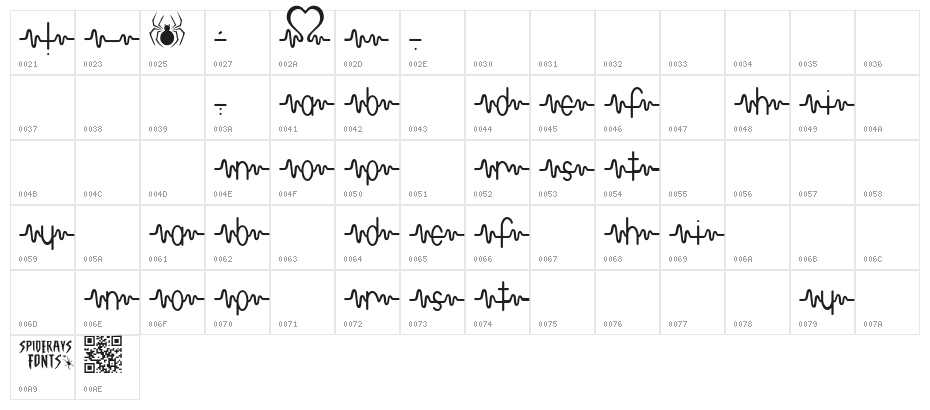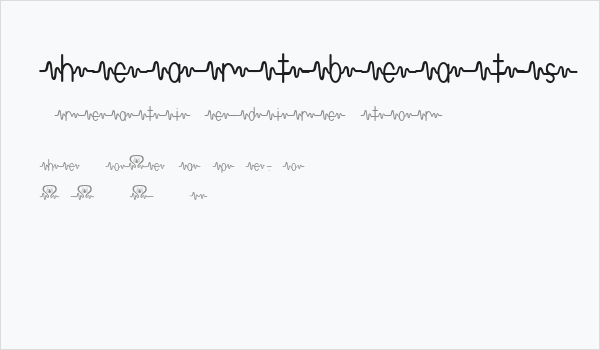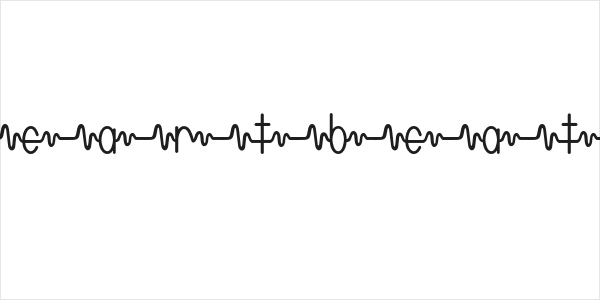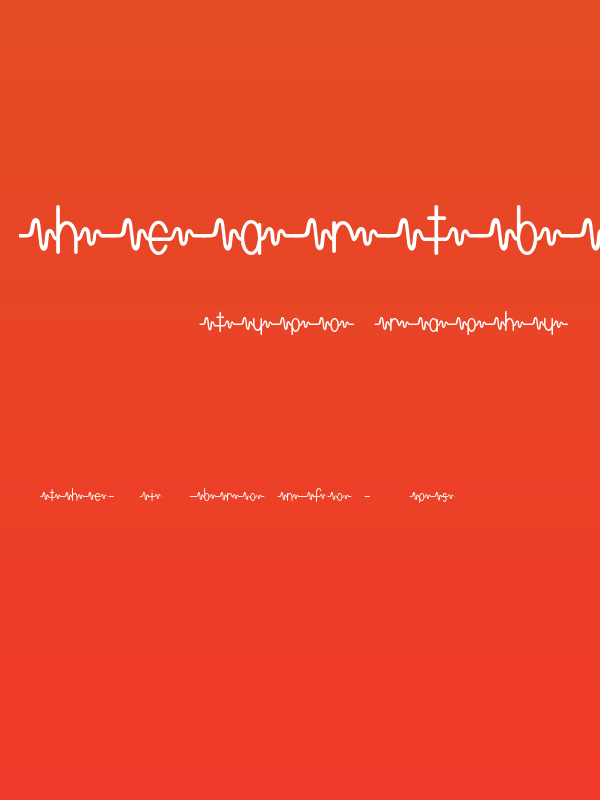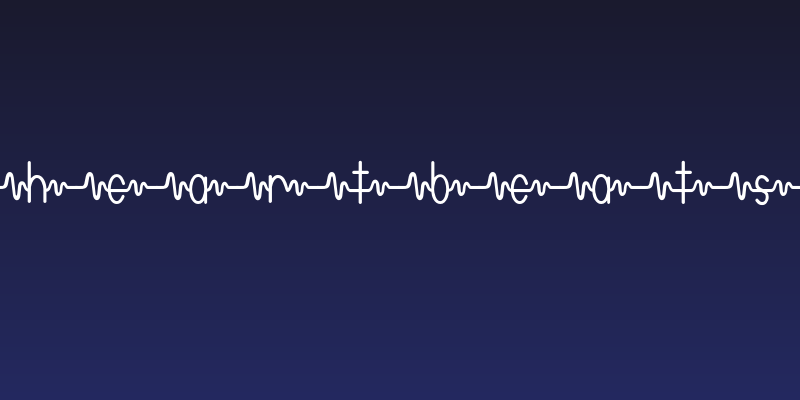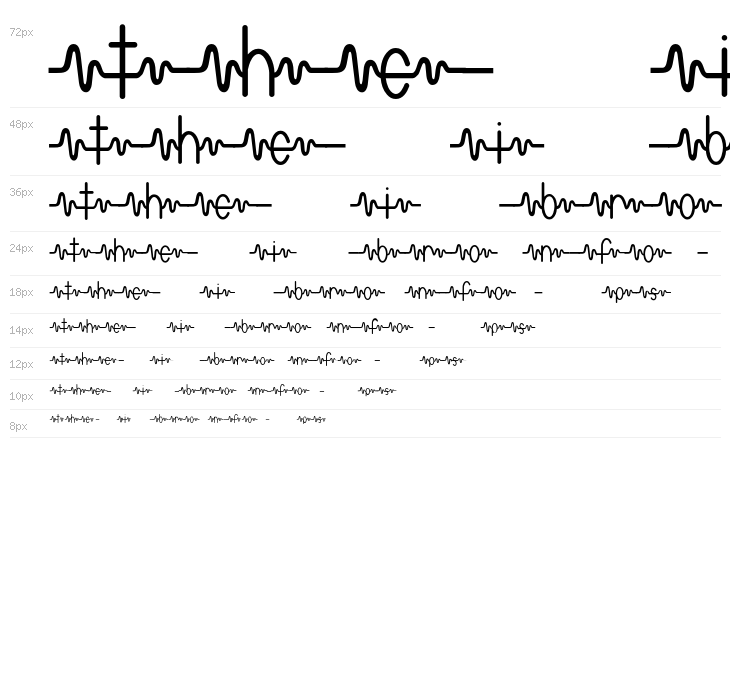
heartbeats Font
heartbeats Description
This decorative font mimics the appearance of a heartbeat or electrocardiogram line, with each character seamlessly integrated into the waveform. The design is playful and unique, making it stand out with its continuous line style that resembles a heart rate monitor. The characters are connected by a consistent line that undulates to form each letter, number, or symbol, creating a cohesive and rhythmic visual effect. The font includes both uppercase and lowercase letters, numbers, and a selection of special characters, all maintaining the heartbeat motif. This font is ideal for creative projects where a thematic or illustrative touch is desired, particularly in contexts related to health, wellness, or love.
heartbeats
| Use Case | Logos, Posters, Invitations |
| Proposed Projects | Ideal for health-related branding, romantic event invitations, or creative posters. |